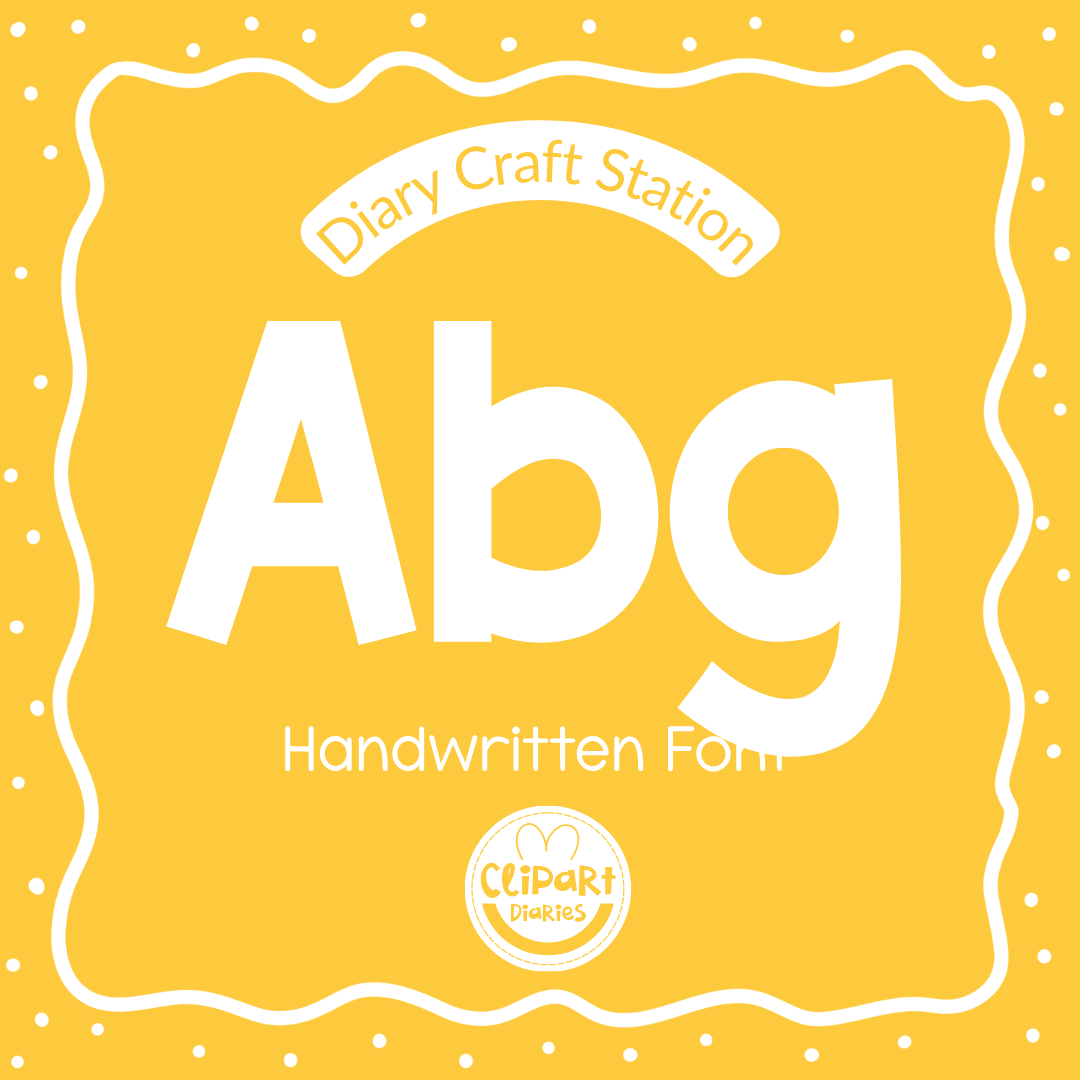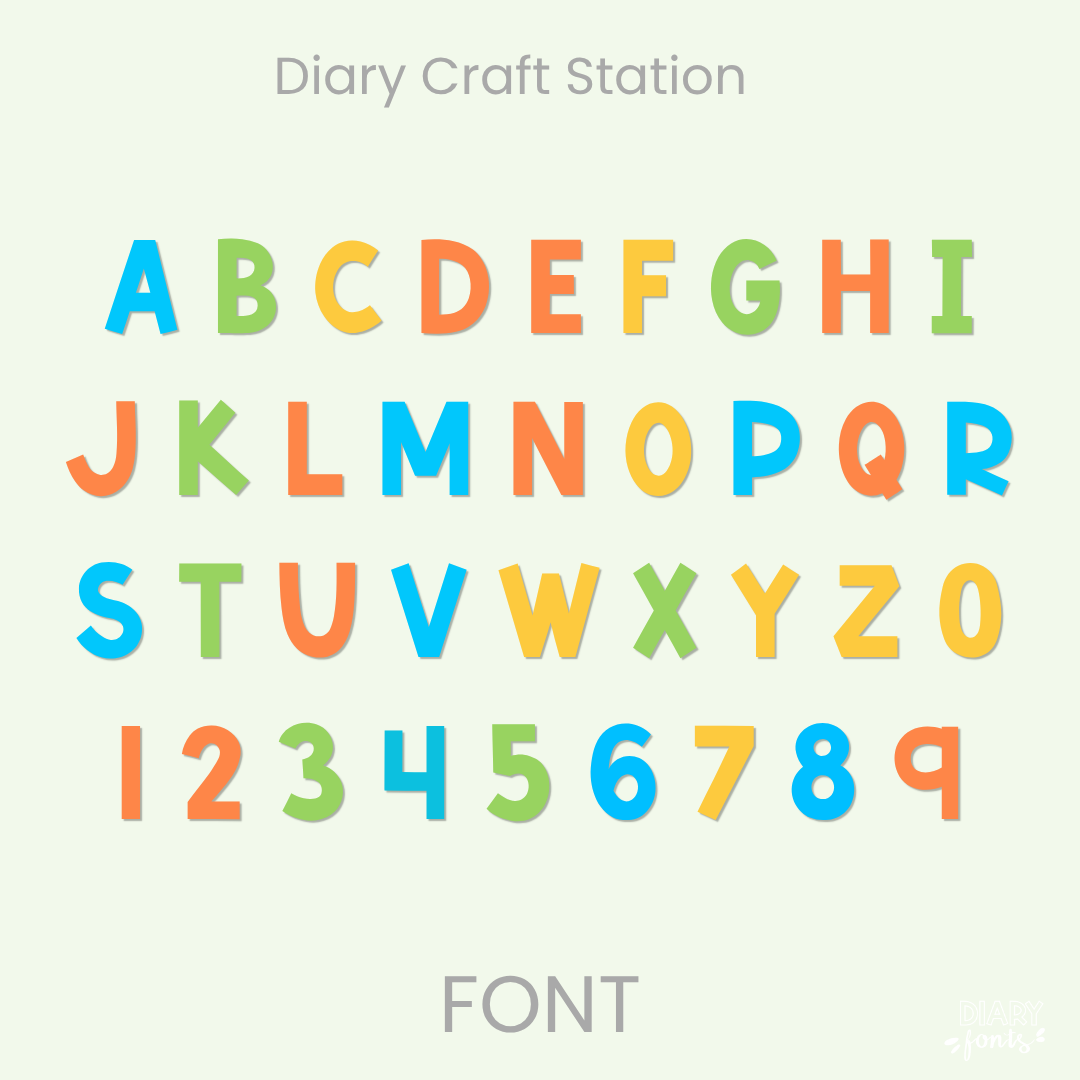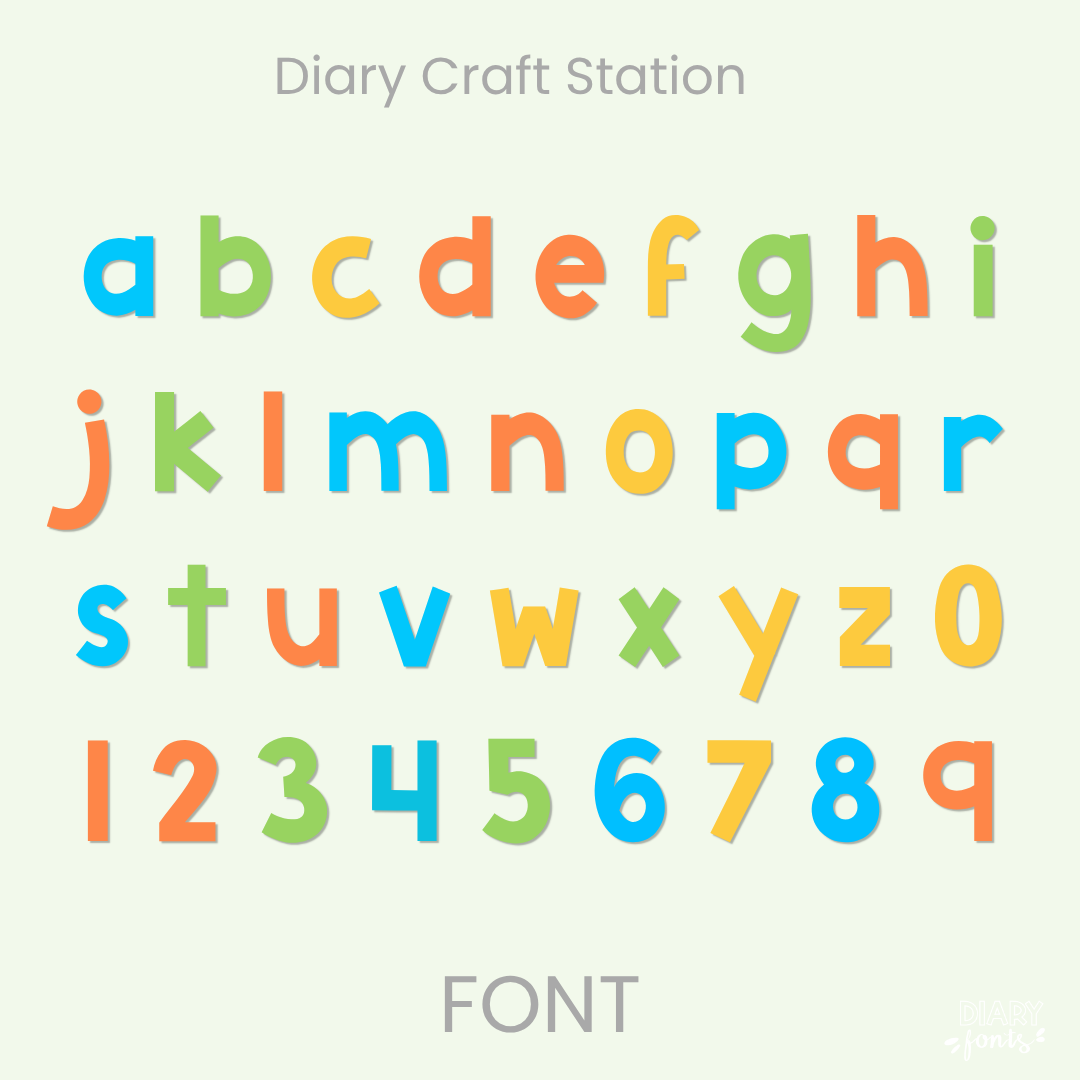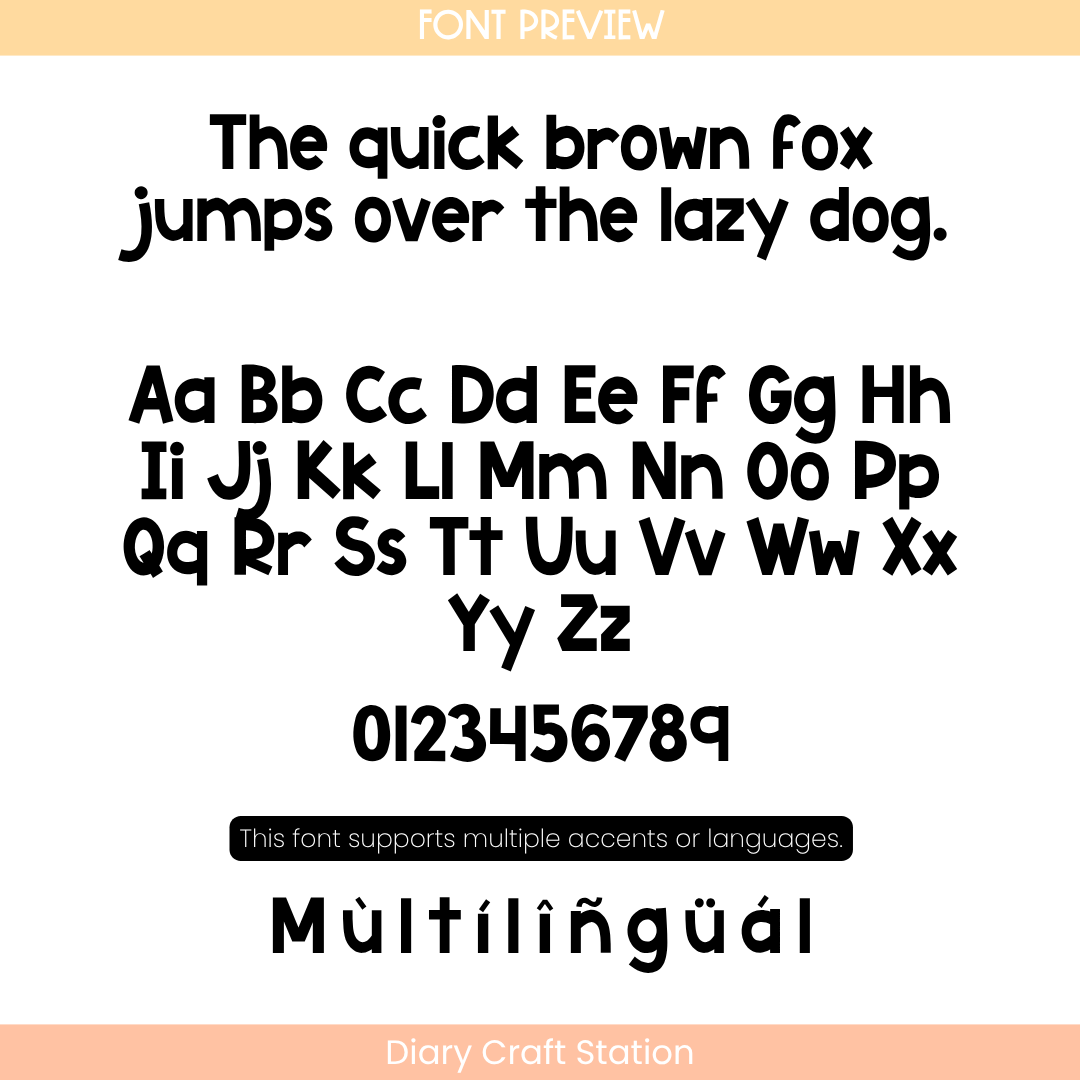
Diary Craft Station Font
The Diary Craft Station is a neat and dependable handwritten font designed to give your digital resources and classroom materials a tidy, hand-crafted feel.
If you want to give your projects a cheerful and friendly look, Diary Craft Station is an excellent choice. It features a straightforward, upright handwritten character style that mimics clean and careful everyday lettering while remaining easy to read. This makes it highly legible for students while still feeling playful. It is especially effective for bold headers, classroom labels, and primary school resources. The font includes a full set of uppercase and lowercase letters, numbers, and multiple accents to support different languages. It is ready for use in Canva, MS Office, and Adobe Apps, and it works perfectly with iPad apps like GoodNotes and Procreate. Whether for personal classroom use or commercial resources, this font adds a soft and approachable aesthetic to your work.